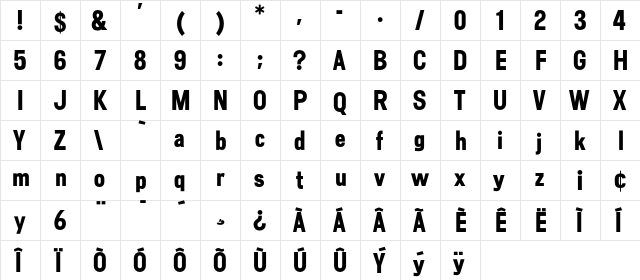
VibrationGothic Regular
Design Context for VibrationGothic Typeface
VibrationGothic takes a clean, functional approach — its unadorned letterforms prioritise legibility and work reliably across screen and print environments.
Font Pairing: Works well alongside a characterful serif or display font that can carry the expressive load while VibrationGothic handles the functional copy.
Pro Tip: Pair VibrationGothic with a display or serif font for headlines — its neutral character makes it an excellent supporting player in complex typographic systems.